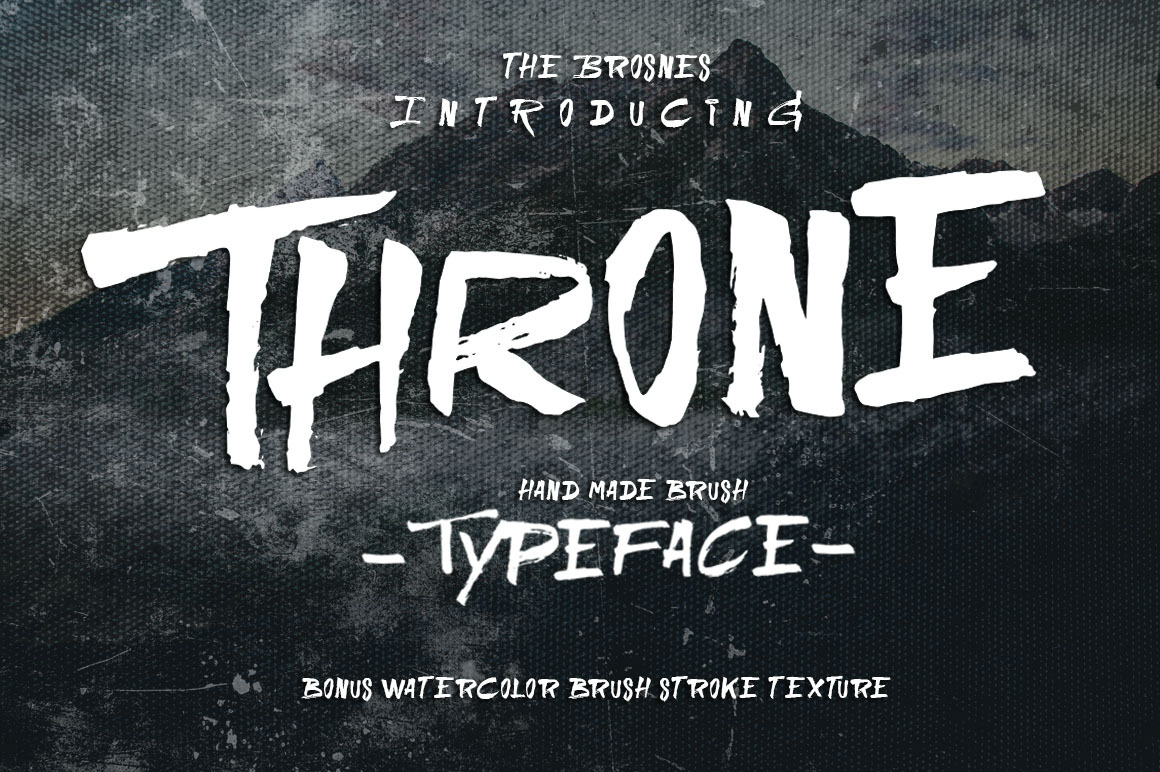
THRONE Typeface
Throne Typeface is the new font from The Brosnes Design Co. was created with hand-painted characters, a casual, arty and inky. Designed to help you create the look of stunning custom hand-lettering.
Throne Typeface comes with upper characters, punctuation, numerals, and supports international languages.
Perfect for : using in ink or watercolour based designs or on its own as bold hand-brushed lettering. Use it for Branding, Logos, Greeting Cards, Stationery Design, Invitations, T-shirts, Apparel, Packaging designs, Posters, Typographic Design, and so much more..